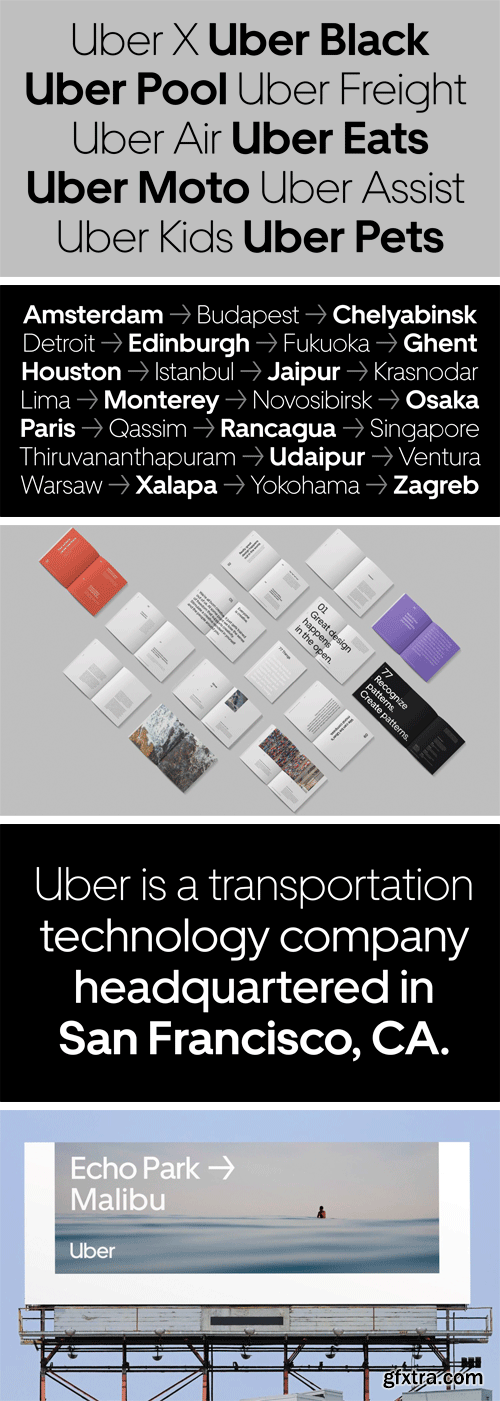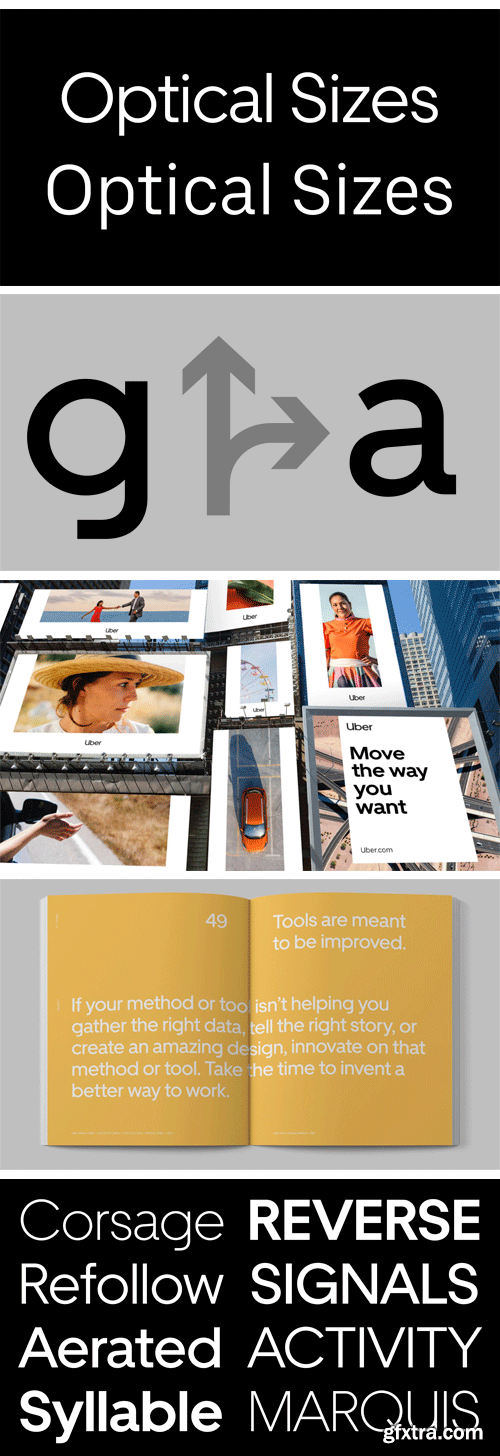
Uber Move Font Family
We drew a new logo and custom typefaces for Uber, in collaboration with Wolff Olins SF. Uber Move is inspired by early twentieth century sans serifs like Futura and Neuzeit Grotesk, reimagined through the lens of transportation fonts from around the world. The fonts were produced in 4 weights and 2 optical sizes: Display is tracked tightly and is geometric in construction, and Text is spaced more generously and is slightly condensed.